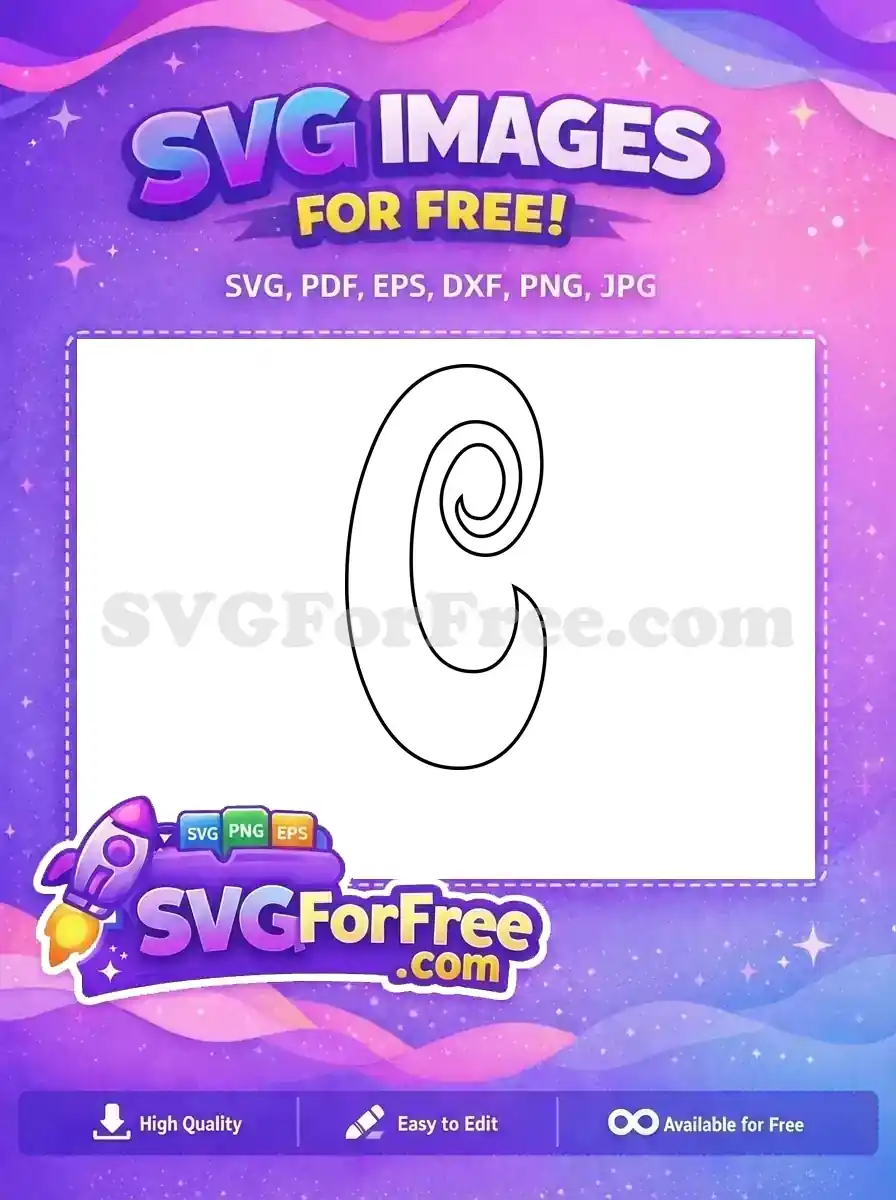
Free Curly Font Free Initial Letter C Free SVG – Instant Download
An outline of the capital letter ‘C’ with a decorative spiral or swirl filling its interior space. Free.
Free Curly Font Free Initial Letter C Free SVG